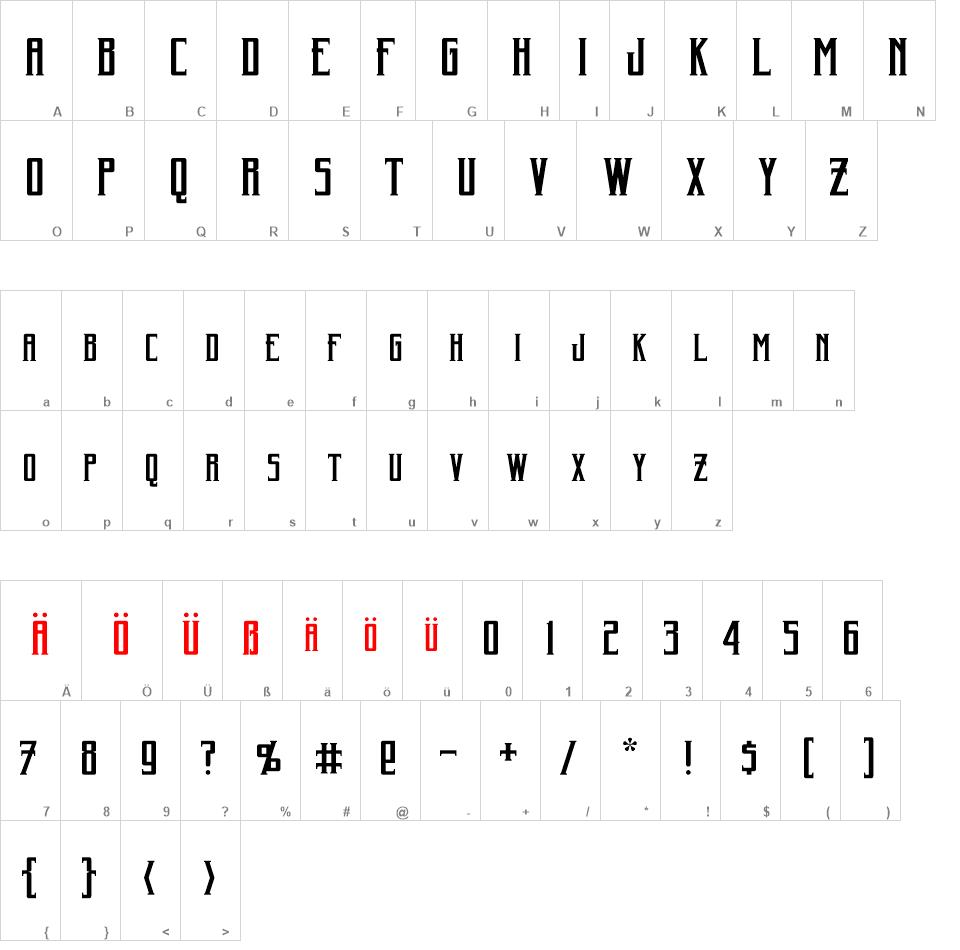
Harker
A gothic-motif font based on some fantasy/horror comic logos. Includes full alphabet, extended characters, and euro. Includes regular, bold, italic, and bold-italic versions.